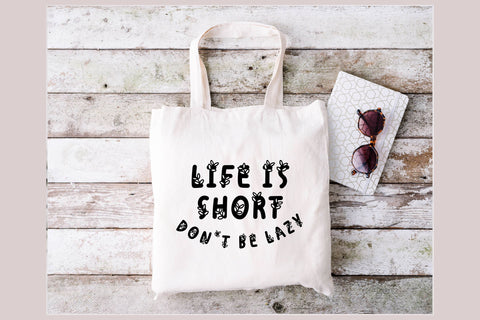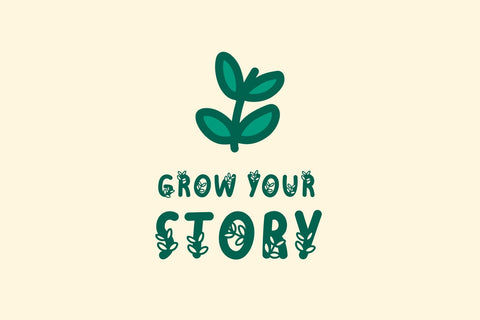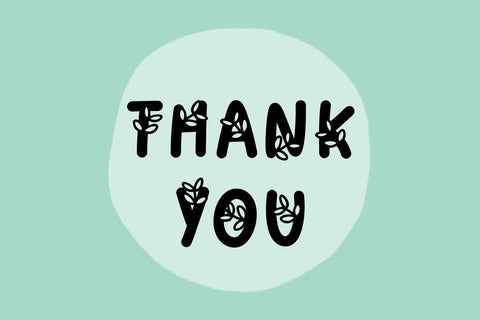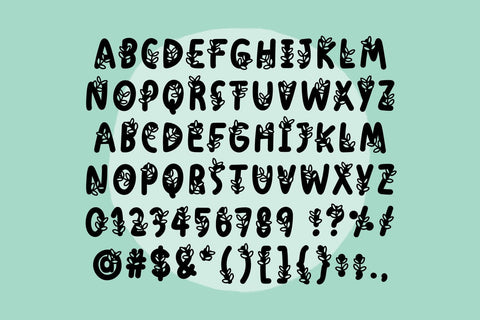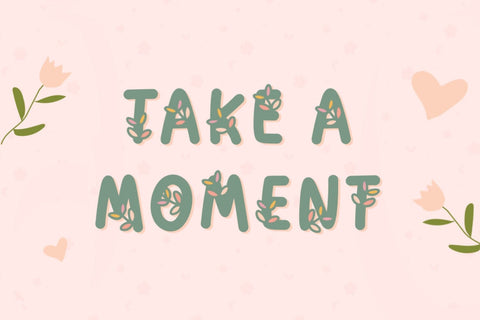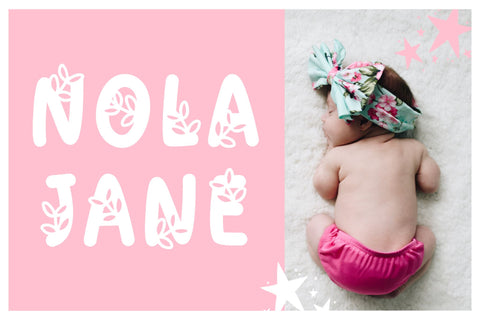
Leafy Cute - Hand Drawn Decorative Font
Leafy Cute is a cute friendly handwritten font with leaf decorations. You can use this font in various projects - blog posts, logos, branding, digital planner, digital notes, invitations, greeting cards, planners, digital journal, photo albums, study notes, school notes, college notes, decorations and much more. Its authentic look and feel will add a personal and realistic feel to your designs.
The font includes uppercase, numbers, punctuations